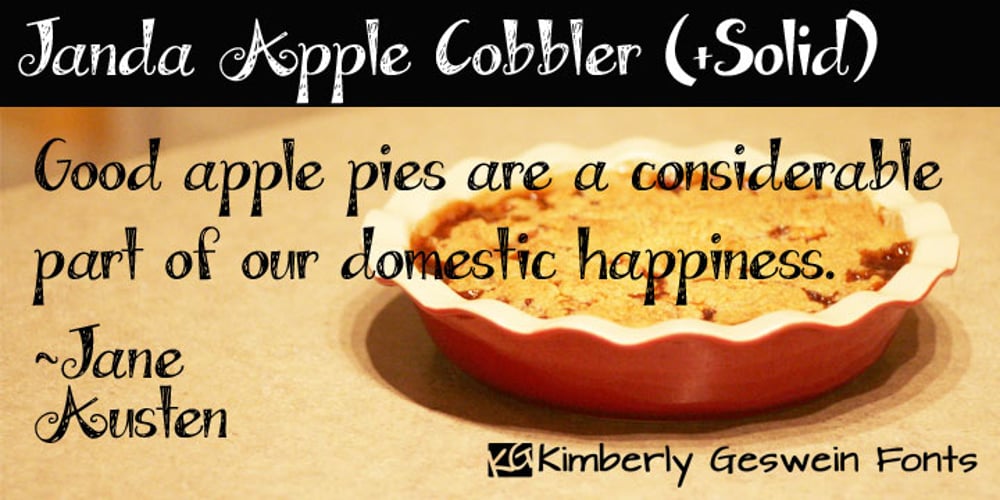
Janda Apple Cobbler
Janda Apple Cobbler font
Janda Apple Cobbler Font Family was designed by Kimberly Geswein and published by Kimberly Geswein. Janda Apple Cobbler contains 2 styles and family package options. A sketched freestyle handwriting with curls, chunks, and skinny bits. The end result is as organic, natural, and inviting as grandma’s apple cobbler.